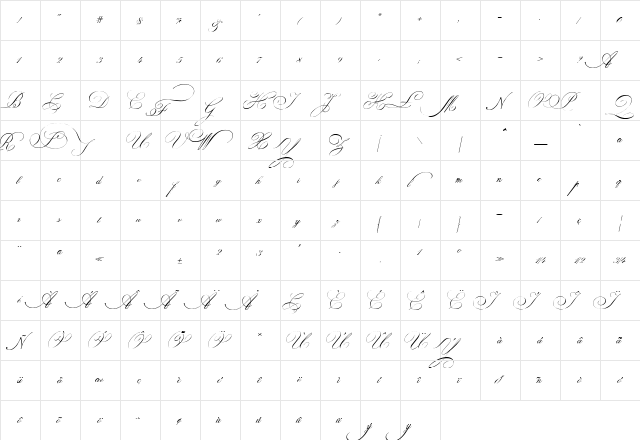
Indenture English Penman Demo Regular
Design Context for Indenture English Penman Demo Typeface
Indenture English Penman Demo is a composed and adaptable typeface that performs quietly and consistently across a wide range of design contexts.